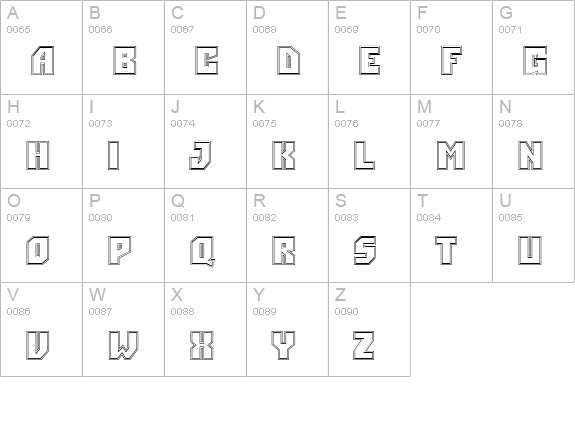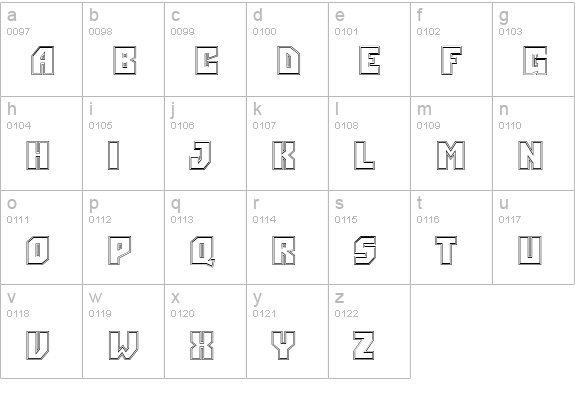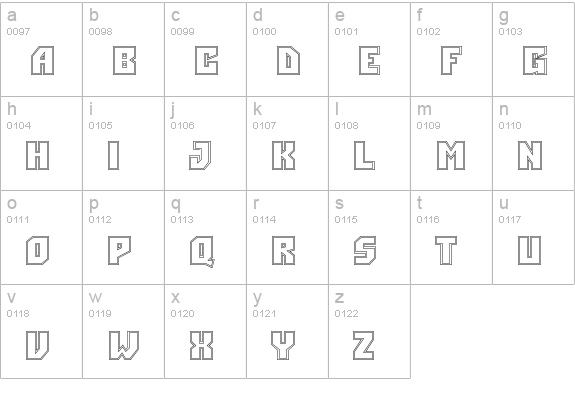
a_Simpler2Otl Bold Font Details
a_Simpler2Otl Bold is a strong, high-contrast variant in the a_Simpler2Otl typeface family \xE2\x80\x94 well suited to headlines, attention-grabbing titles, and strong calls-to-action.
Introducing Simpler2Otl Bold font, a modern and versatile typeface that combines simplicity with a touch of elegance. This bold version of Simpler2Otl is perfect for making a statement in your designs, whether it be for headlines, logos, or any other creative project. With its clean lines and strong presence, Simpler2Otl Bold exudes confidence and sophistication. The bold weight adds a sense of authority and impact to your text, making it stand out and grab attention. Best of all, Simpler2Otl Bold font is free to download at FontsMarket.com. So you can easily enhance your designs without breaking the bank. Don't miss out on this opportunity to add a touch of modern flair to your projects with Simpler2Otl Bold font. Download it today and start creating stunning designs with ease.